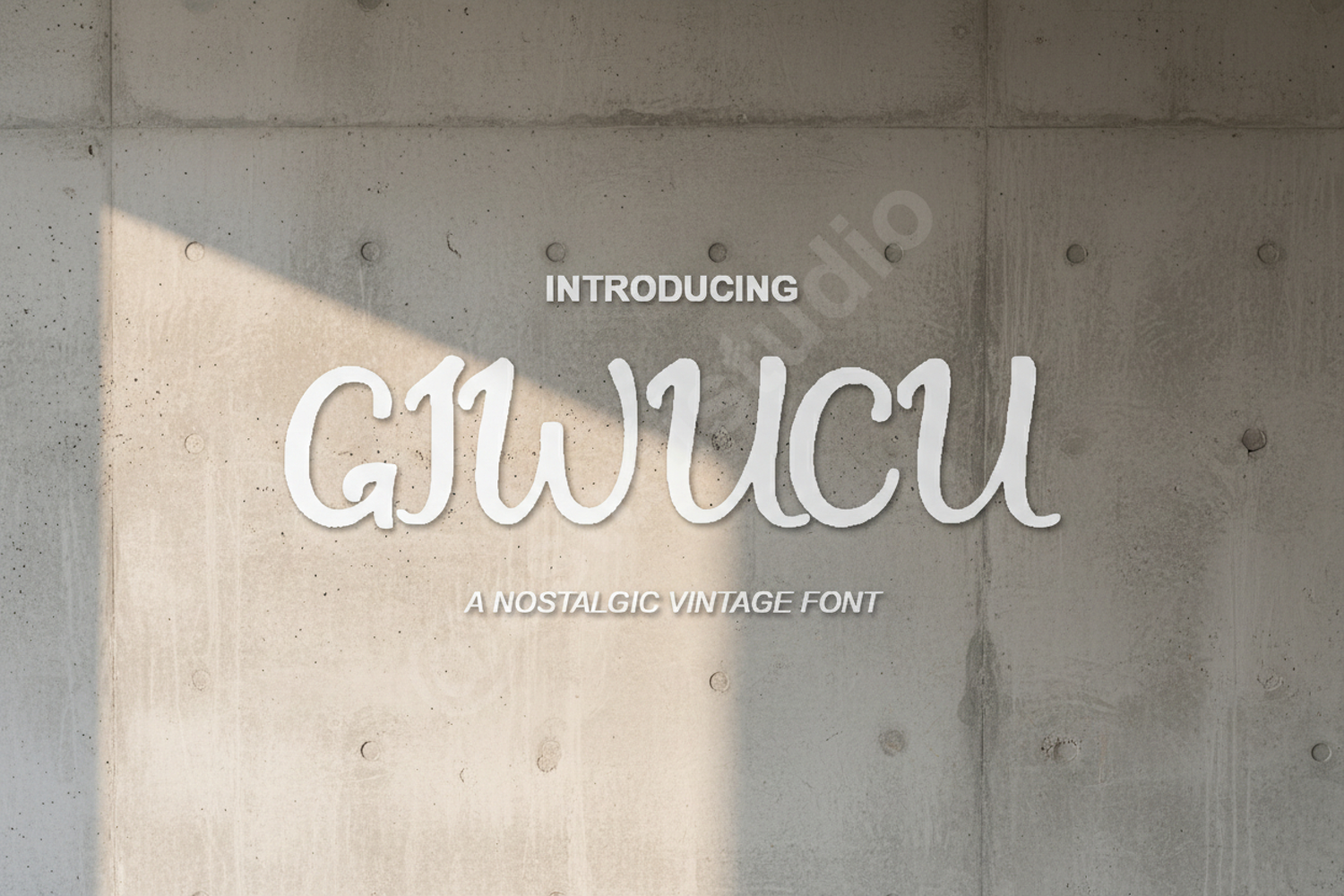
Giwucu - Sophisticated Modern Sans Serif
Giwucu
Introduction:
Elevate your creative projects with Giwucu, a sophisticated modern sans serif font that balances minimalist aesthetics with professional functionality. Meticulously designed for clarity and impact, Giwucu offers a timeless appeal that adapts seamlessly to various design environments. Whether you are crafting a luxury brand identity or a clean corporate layout, this font provides the premium quality your work deserves.
Optimized Use Cases:
- Branding and Identity: Create memorable logos and cohesive brand systems.
- Editorial Design: Perfect for high-end magazine layouts and book covers.
- Web and Digital: Ensure readability across all screen sizes and interfaces.
- Minimalist Packaging: Enhance product presentation with clean typography.
- Social Media Graphics: Stand out with crisp, professional text overlays.